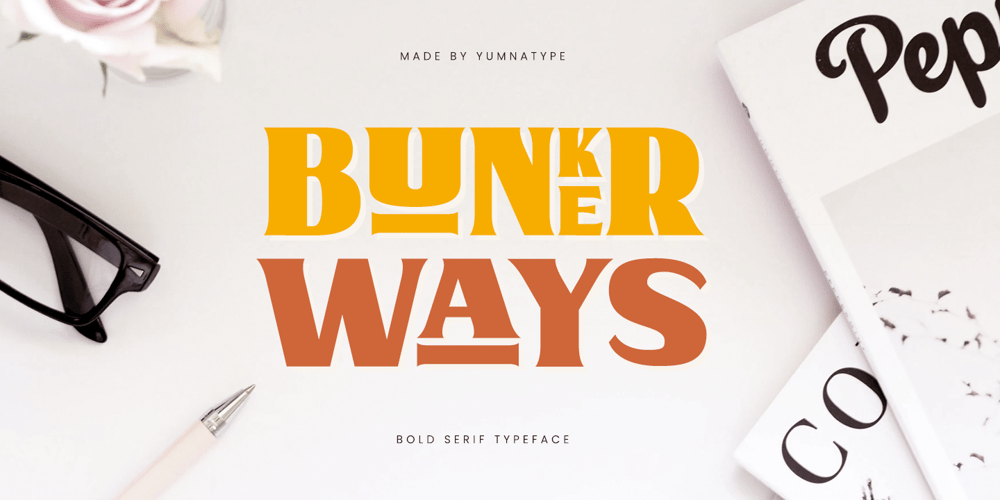
Bunker Ways
Bunker Ways font
Bunker Ways Font Family was designed by Donis Miftahudin and published by Yumna Type. Bunker Ways contains 1 styles and family package options. Bunker Ways is a commanding serif font that exudes strength with its design. Crafted with precision and attention to detail, this font is designed to make a bold statement and leave a lasting impression.Each letter in Bunker Ways is meticulously crafted to convey a sense of power and solidity, with clean lines and sharp angles that command attention. The bold weight of the font adds to its authoritative presence, making it ideal to make strong and impactful typographic statements. In addition, enjoy the features here.Features: Alternates Ligatures Multilingual Supports PUA Encoded Numerals and Punctuations Bunker Ways fits in headlines, logos, posters, flyers, branding materials, print media, editorial layouts, and many more designs. Find out more ways to use this font by taking a look at the font preview.Thanks for purchasing our fonts. Hopefully, you have a great time using our font. Feel free to contact us anytime for further information or when you have trouble with the font. Thanks a lot and happy designing.